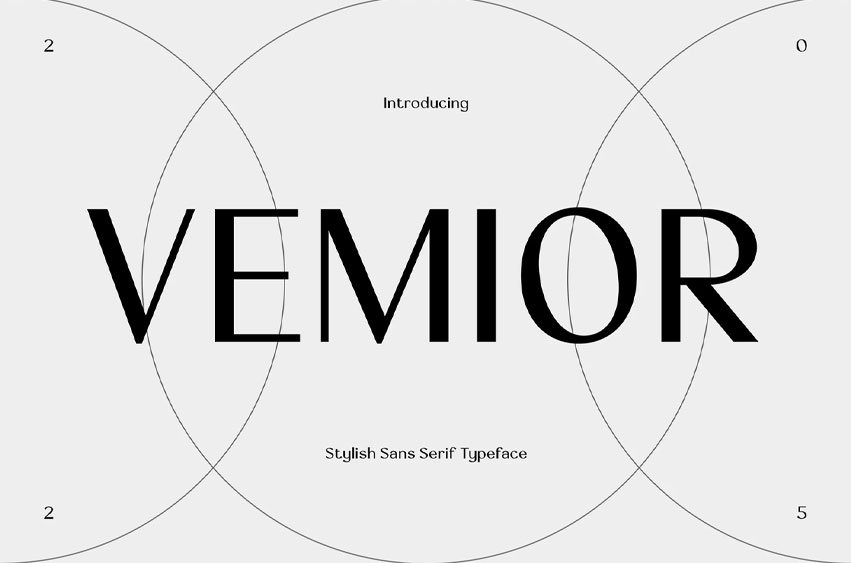
Vemior Font Luxury Fashion Sans Serif is a bold and elegant sans serif typeface crafted to embody the spirit of luxury, high fashion, and modern sophistication. With its clean lines, striking letterforms, and refined proportions, Vemior is designed to make a strong statement in branding, editorial design, and upscale visual identities.
Whether you’re creating a luxury fashion brand, magazine headline, or premium logo, Vemior delivers a timeless aesthetic that blends bold presence with elegant restraint. Its versatility makes it ideal for advertising campaigns, packaging, website headers, and exclusive promotional materials.
Font Features
- Luxury-Inspired Design: Sleek, modern sans serif with bold elegance.
- Complete Character Set: Uppercase, lowercase, numbers, ligature, multilingual, symbols.
- OpenType Features: Alternates, ligatures, stylistic options.
- Multilingual Support: Supports multiple languages including English, French, Italian, German, Spanish.
Vemior combines modern boldness and luxury refinement, making it the perfect choice for high-end design projects. From fashion campaigns to elegant branding systems, it adapts seamlessly to elevate your creative vision.
- Fashion Branding: Build iconic luxury brand identities.
- Editorial Design: Create striking magazine layouts and covers.
- Logo Design: Craft memorable and upscale logos.
- Advertising & Marketing: Elevate promotional campaigns with bold impact.
- Product Packaging: Add premium flair to high-end products.